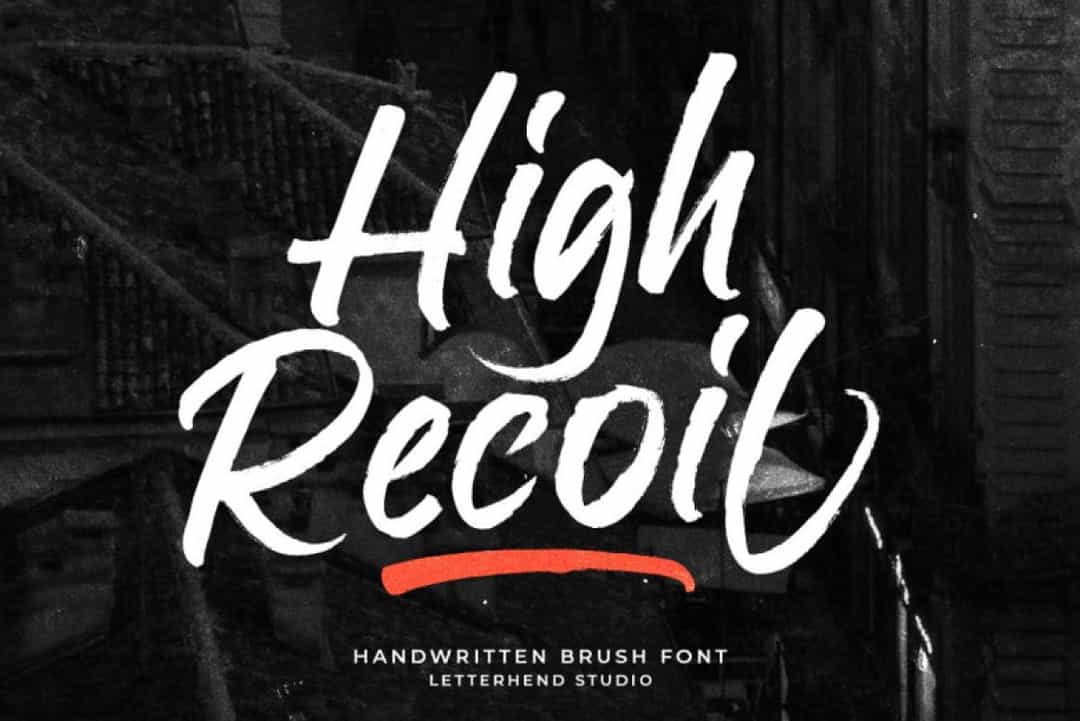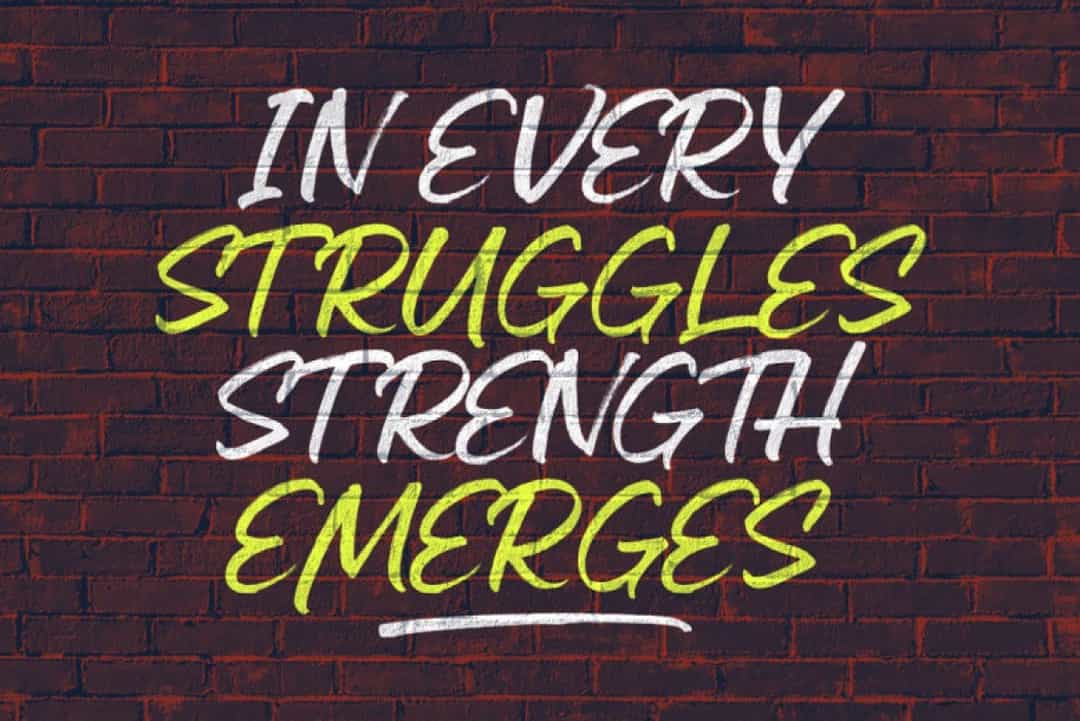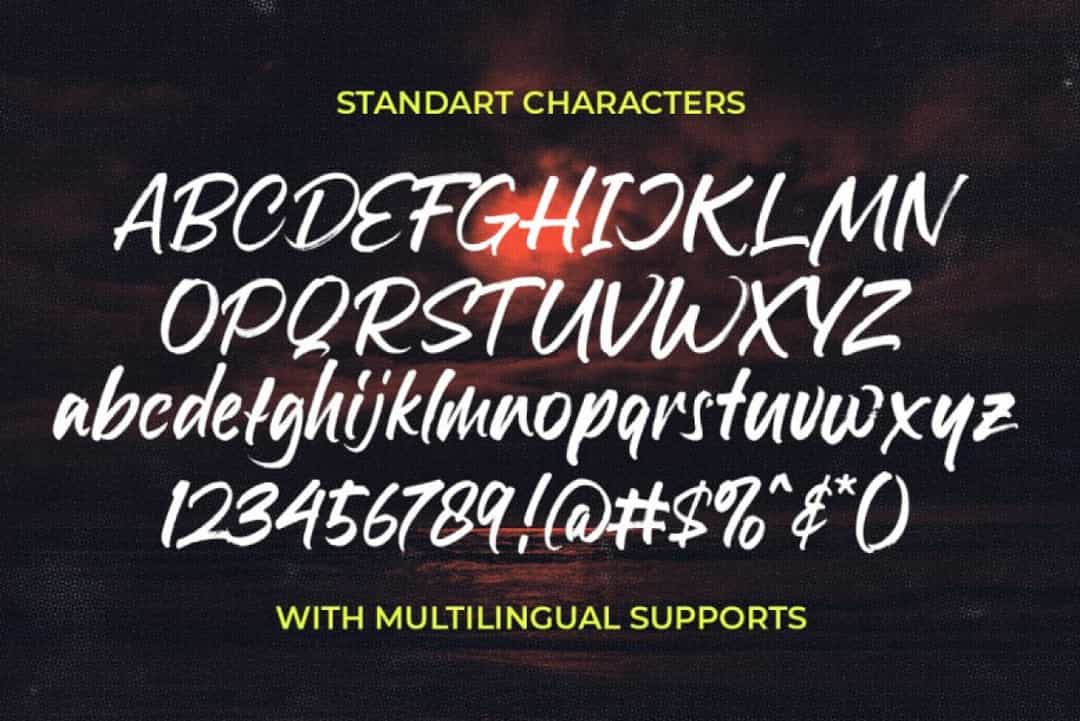
High Recoil is a rough handwritten script font with an organic texture that is perfect for logos as well as formal designs such as labels, invitations and books. Additionally, this font can also be used on wedding/greeting cards packaging fashion, makeup books stationery novel labels or any other advertisements.